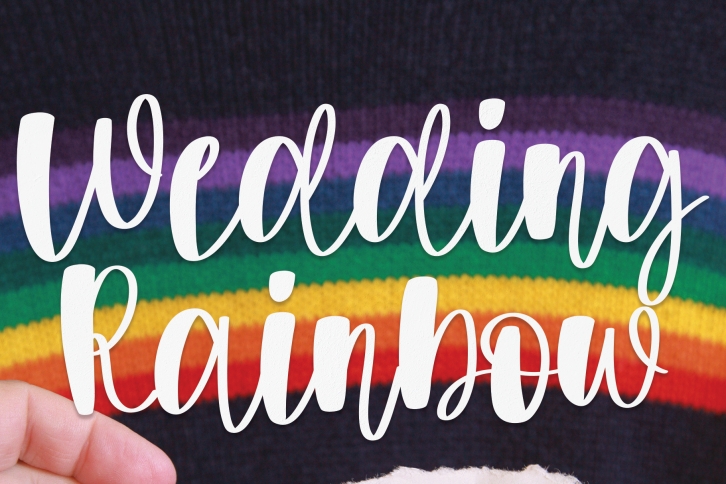
Wedding Rainbow is a beautifully kerned handwritten font that combines thick and thin typography for a spectacular finish! Add it to your projects, and watch how it makes them stand out!